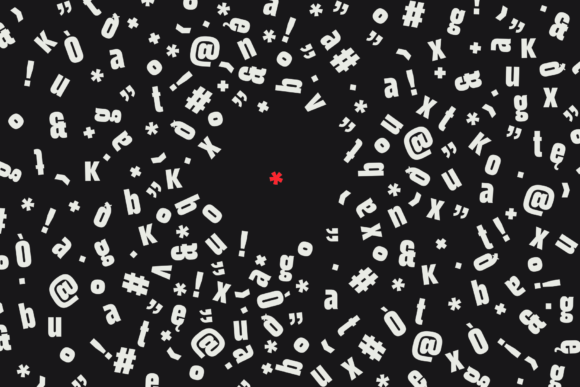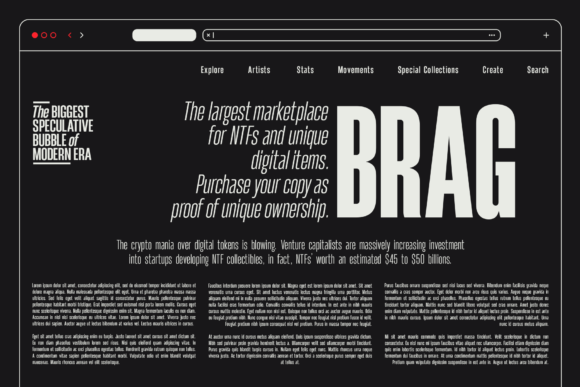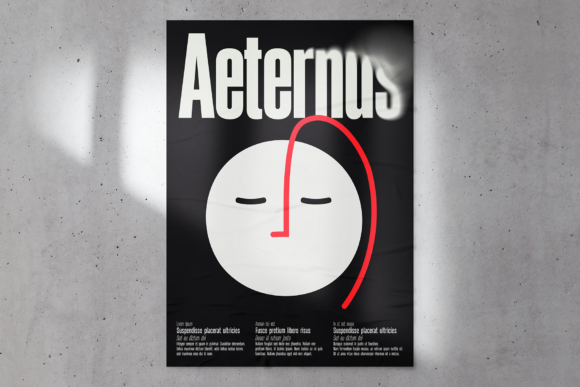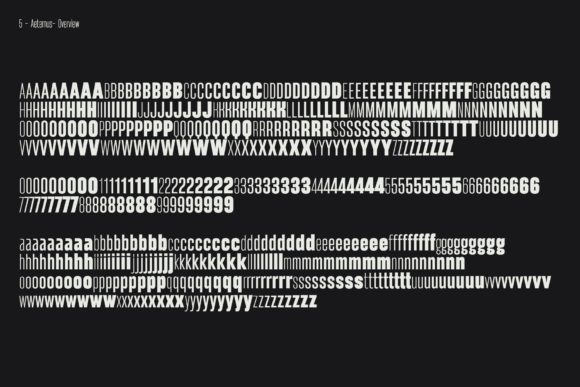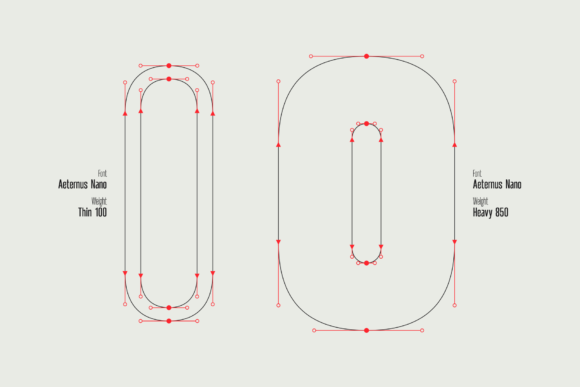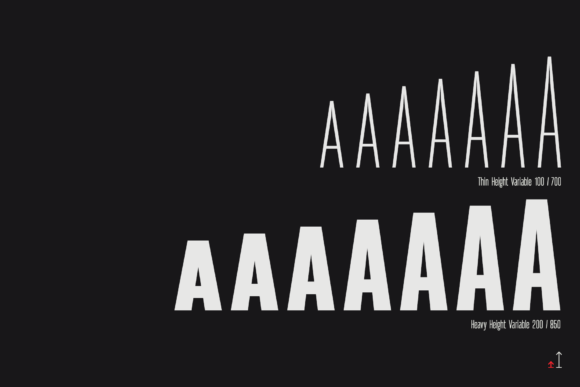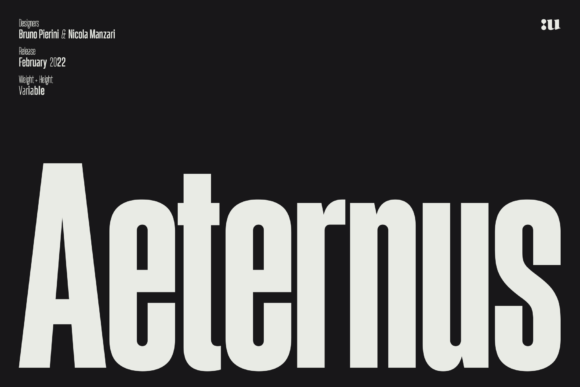
Aeternus Font: The Ultimate Sans Serif for Modern Designers
In the world of typography, a font can make or break a design project. As a designer or crafter, you’re constantly on the lookout for the perfect font to elevate your work. Look no further than Aeternus, a clean and neat sans serif font that’s perfect for a wide range of applications. In this article, we’ll dive into the features and benefits of Aeternus, and explore how it can take your branding projects to the next level.
What is Aeternus Font?
Aeternus is a modern sans serif font designed with simplicity and versatility in mind. Its clean lines and neat appearance make it an excellent choice for any design project that requires a professional and sleek look. Whether you’re working on a logo, t-shirt printing, sporting design, or any other branding project, Aeternus is the perfect fit.
Key Features of Aeternus Font
• Clean and Neat Design: Aeternus boasts a clean and neat design that’s perfect for creating a professional image.
• Sans Serif Style: The font’s sans serif style makes it highly legible and easy to read, even at small sizes.
• Highly Versatile: Aeternus can be used in a wide range of contexts, from logos and branding to t-shirt printing and sporting design.
• Easily Customizable: The font is highly customizable, allowing you to adjust the size, color, and style to suit your design needs.
Benefits of Using Aeternus Font
So why choose Aeternus for your design projects? Here are just a few benefits of using this amazing font:
• Instant Professionalism: Aeternus gives your design an instant professional look, making it perfect for businesses and brands.
• Improved Legibility: The font’s clean design and sans serif style make it highly legible, even at small sizes.
• Flexibility: Aeternus can be used in a wide range of contexts, from digital designs to print materials.
• Unique and Modern Style: The font’s modern design and clean lines make it stand out from more traditional fonts.
Use Cases for Aeternus Font
Aeternus is an incredibly versatile font that can be used in a wide range of design projects. Here are just a few examples:
• Logo Design: Aeternus is perfect for creating professional and modern logos that make a lasting impression.
• T-Shirt Printing: The font’s clean design and bold style make it ideal for t-shirt printing and other apparel.
• Sporting Design: Aeternus is a great choice for sporting design, including jerseys, team logos, and more.
• Branding and Advertising: The font’s professional style makes it perfect for branding and advertising materials, including brochures, flyers, and more.
Tips for Using Aeternus Font
To get the most out of Aeternus, here are a few tips to keep in mind:
• Experiment with Sizes: Aeternus looks great at a wide range of sizes, so don’t be afraid to experiment to find the perfect fit for your design.
• Play with Colors: The font’s clean design makes it easy to use in a wide range of colors, so don’t be afraid to get creative.
• Pair with Other Fonts: Aeternus pairs well with a wide range of fonts, so feel free to experiment with different combinations to find the perfect look for your design.